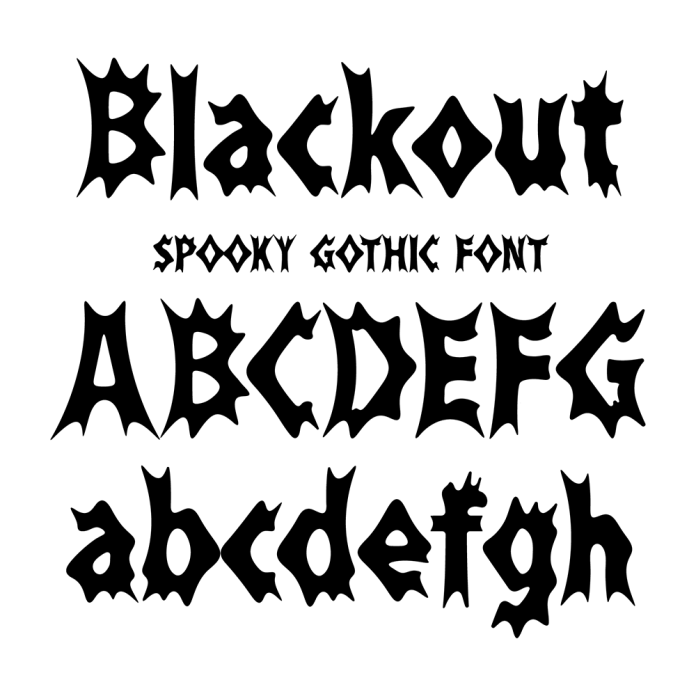
Blackout Spooky Blackletter Decorative Font is a hauntingly beautiful typeface perfect for Halloween-themed projects. Its intricate blackletter style exudes a spooky vibe, making it ideal for posters, invitations, and other designs that require a touch of darkness and mystery.